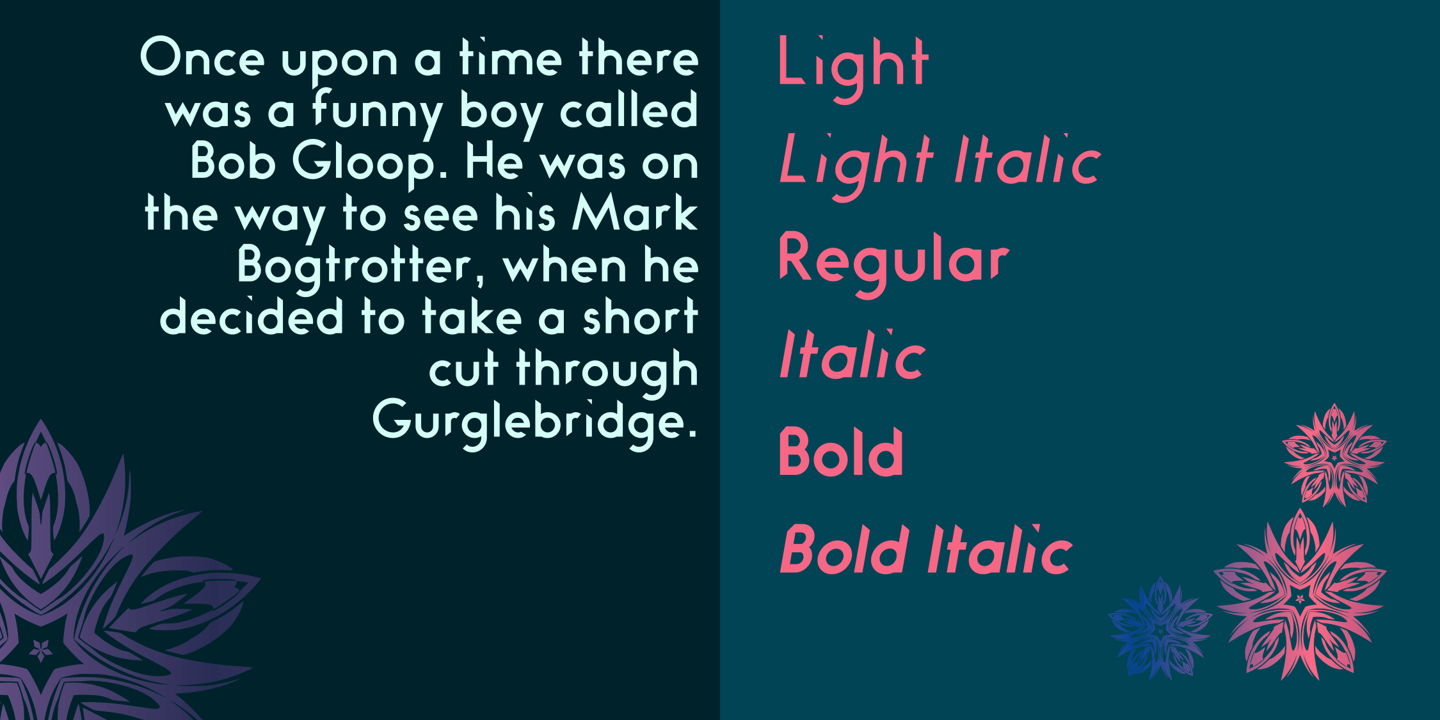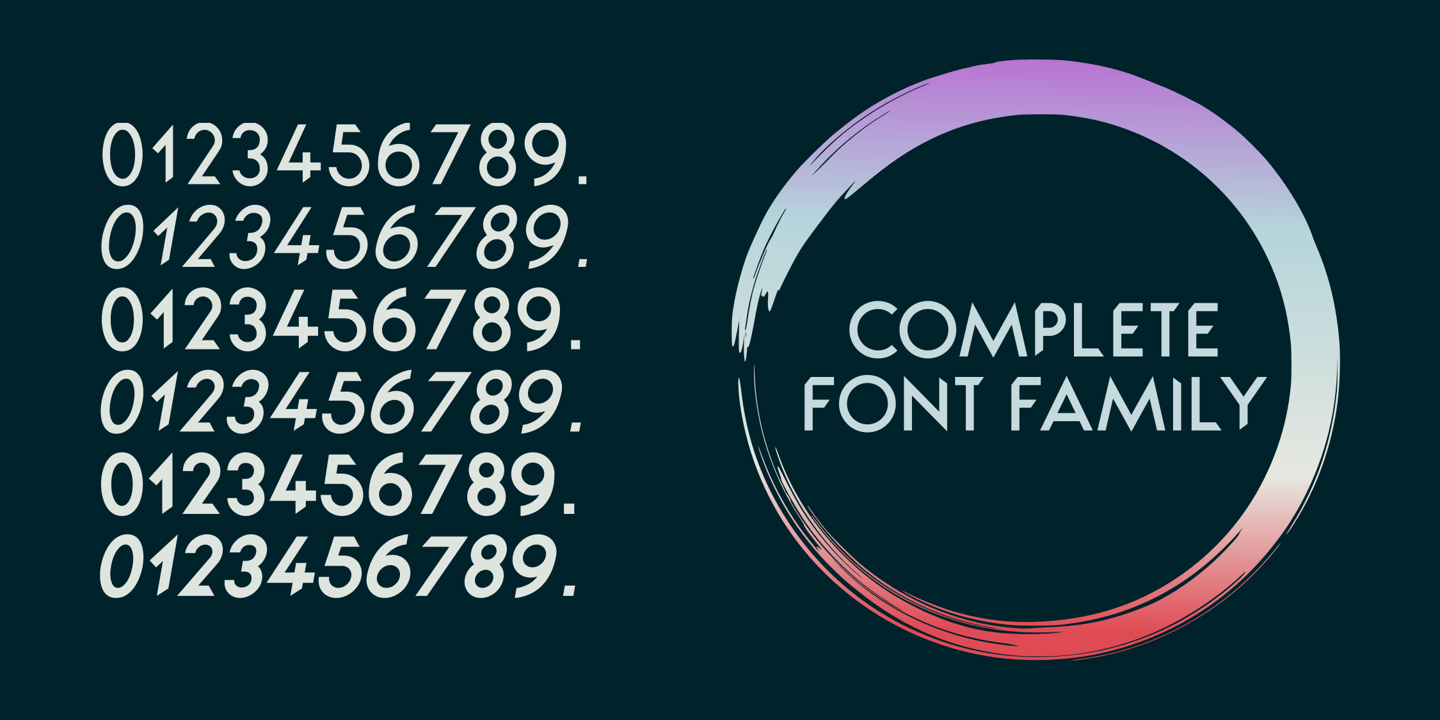
Verlo is a modern minimalist font that compliments any sort of graphic and web design. This font is perfect for branding, wedding invitations, magazines, business cards, quotes, posters, and websites.
The complete font set includes;
Regular, Italic, Light, Light Italic, Bold & Bold Italic
will bring a unique and tender look to your overall design, as any typeface is a major part of the design.
The font is designed so easily be read & bring a minimalist effect to any kind of design.